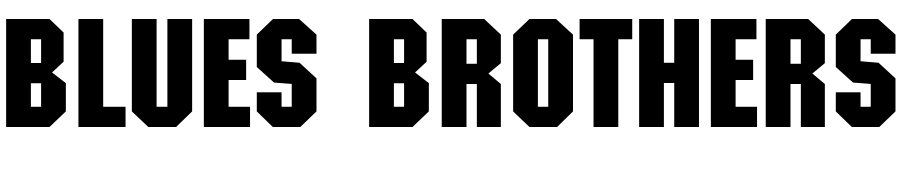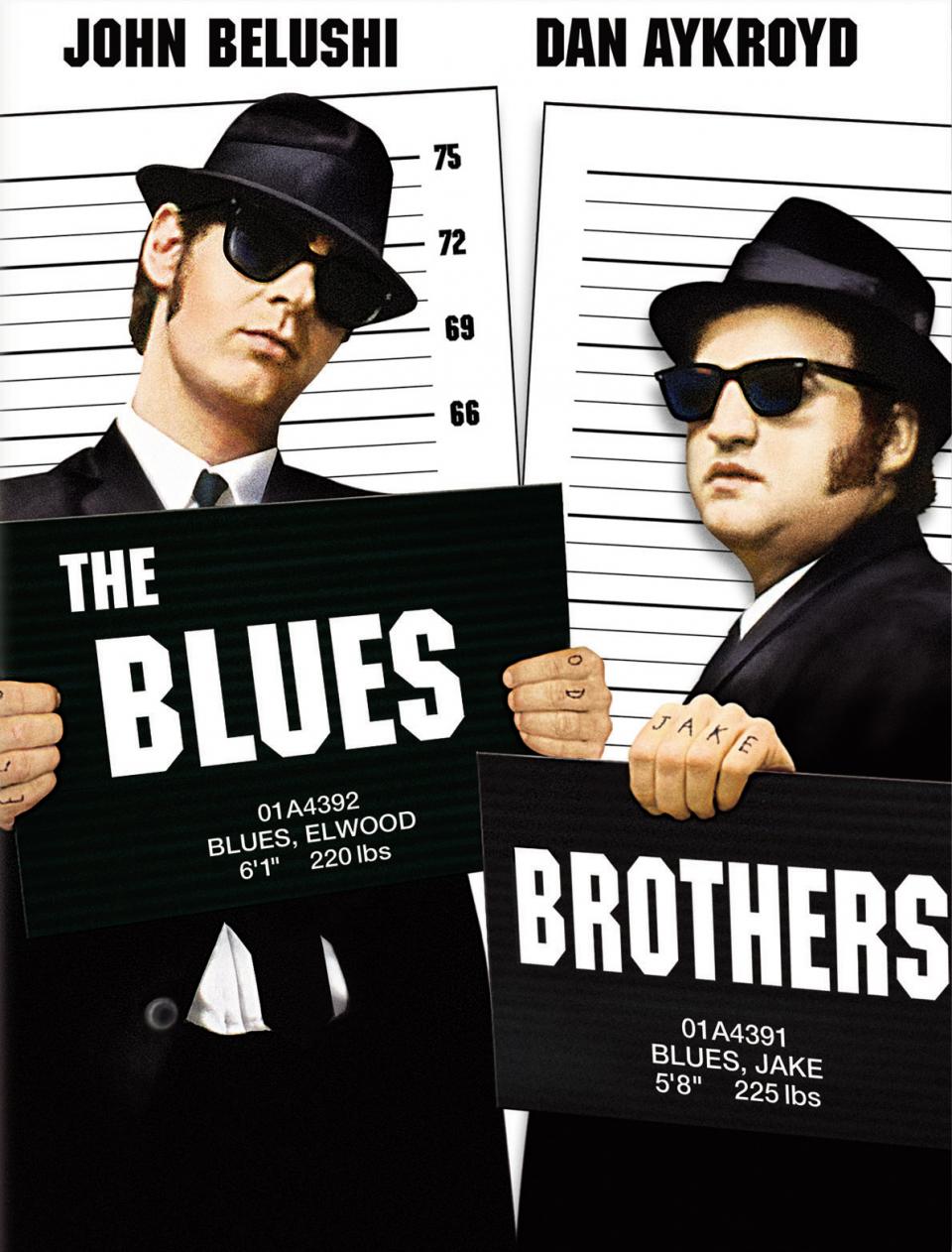
Blues Brothers (Film) Font
Fonts in UseThe Blues Brothers is a classic American comedy film that was released in 1980. It was directed by John Landis and starred Dan Aykroyd and John Belushi as the title characters, Jake and Elwood Blues, respectively.
ITC Machine Medium is the font used for the title of the film on its poster. This bold typeface was created solely in uppercase by the design duo of Bonder and Carnase.